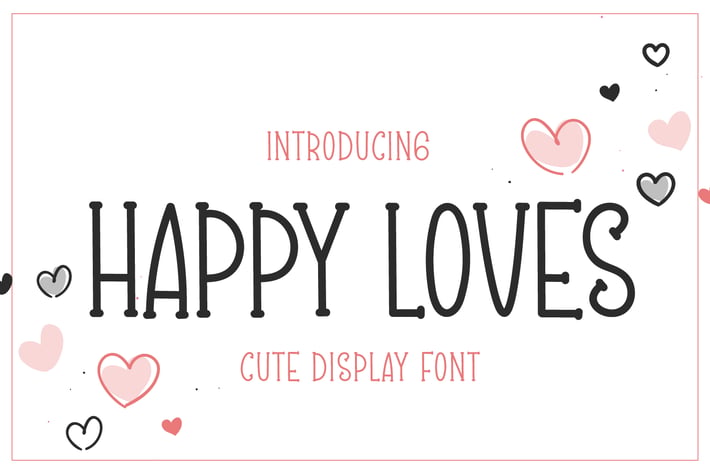
Happy Loves - Cute Handwritten Font
Creavora
Introducing Happy Loves - Cute Handwritten Font
Happy Loves is a charming script font. Fall in love with its incredibly versatile style and use it to create spectacular designs!